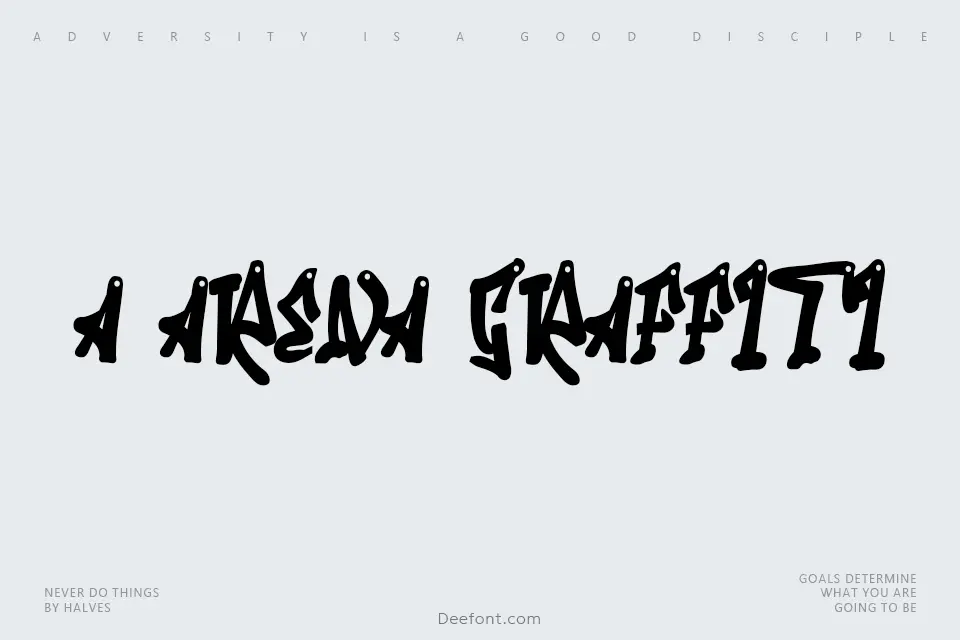
A Arena Graffiti Font
A Arena Graffiti is a bold, dynamic graffiti-inspired script font that captures the raw energy of street art with expressive strokes and urban flair. Each character features exaggerated curves and sharp angles that convey movement and spontaneity, perfect for creating eye-catching headlines, posters, album covers, and urban branding projects. The font’s playful yet edgy aesthetic makes it ideal for designs aiming to communicate creativity, rebellion, and modern urban vibes.